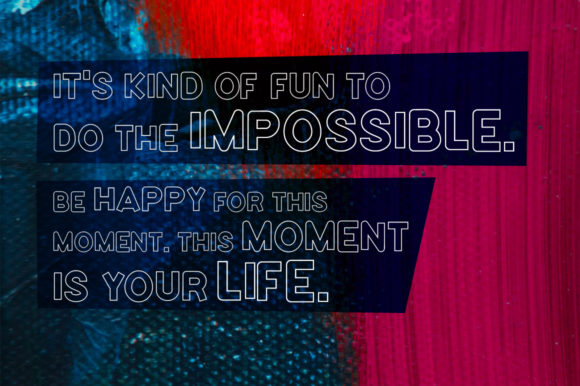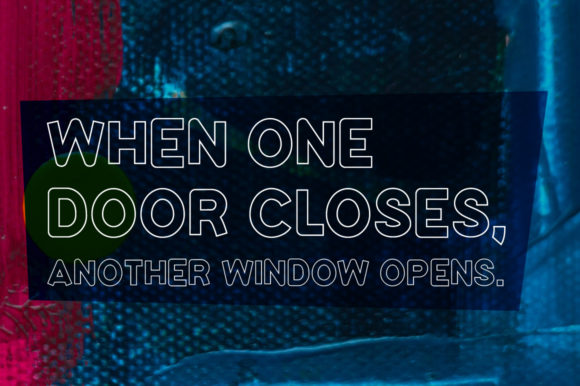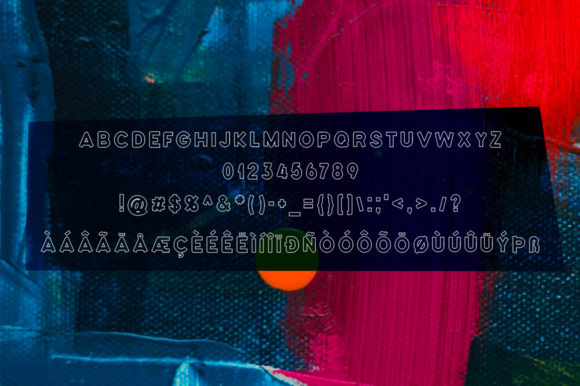
Introduction to Kookie Monxir Stroke Font
The Kookie Monxir Stroke is a brand new display font.
It’s perfectly suited for stationery, logos, t-shirt, paper, print design, website header, photo frame, flyer, music cover, poster, image slider and much more .
Kookie Monxir Stroke Font offers exceptional quality and versatility, making it a valuable addition to your design toolkit. Whether you’re creating for personal projects or commercial use, Kookie Monxir Stroke Font delivers professional results.